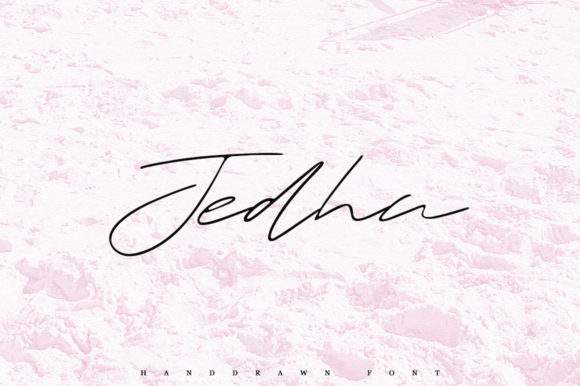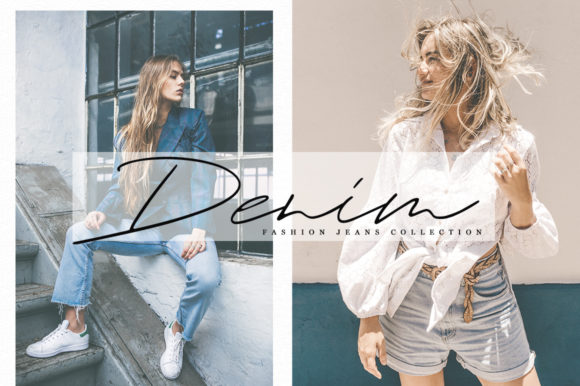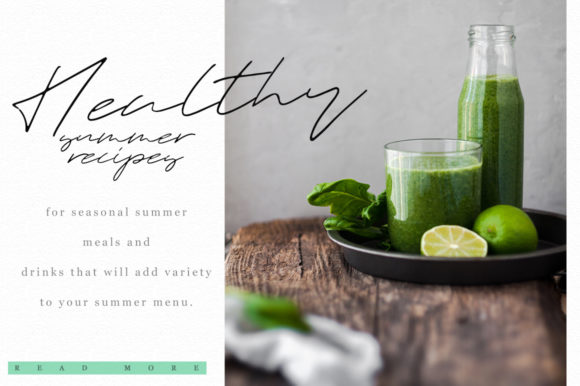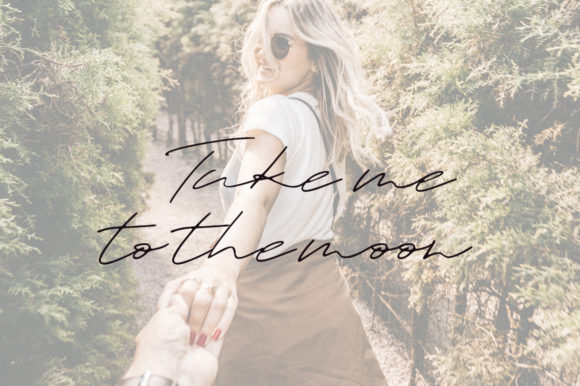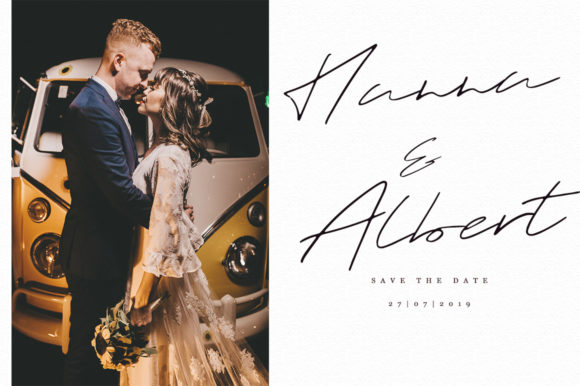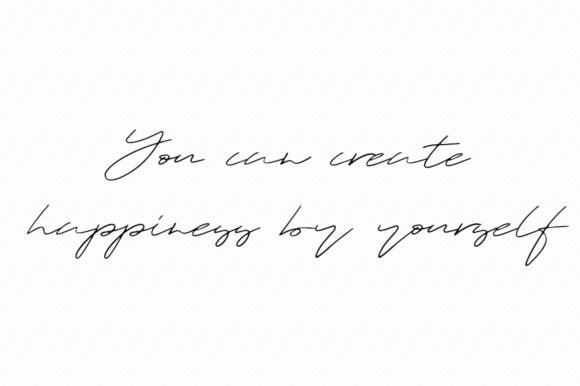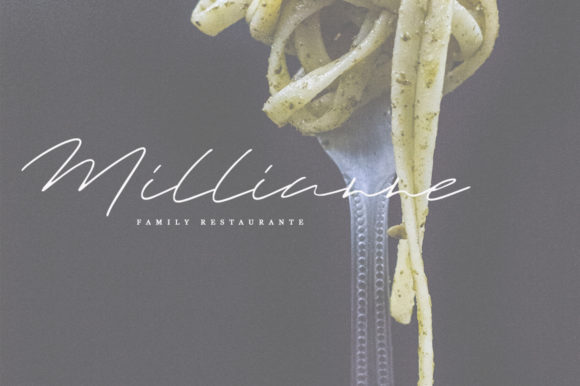
Jedha Font
About Jedha Font
Jedha is an incredibly light and effortless font with a beautiful, organic vibe. Get inspired by its authentic charm, and turn any creative project into a stand out!